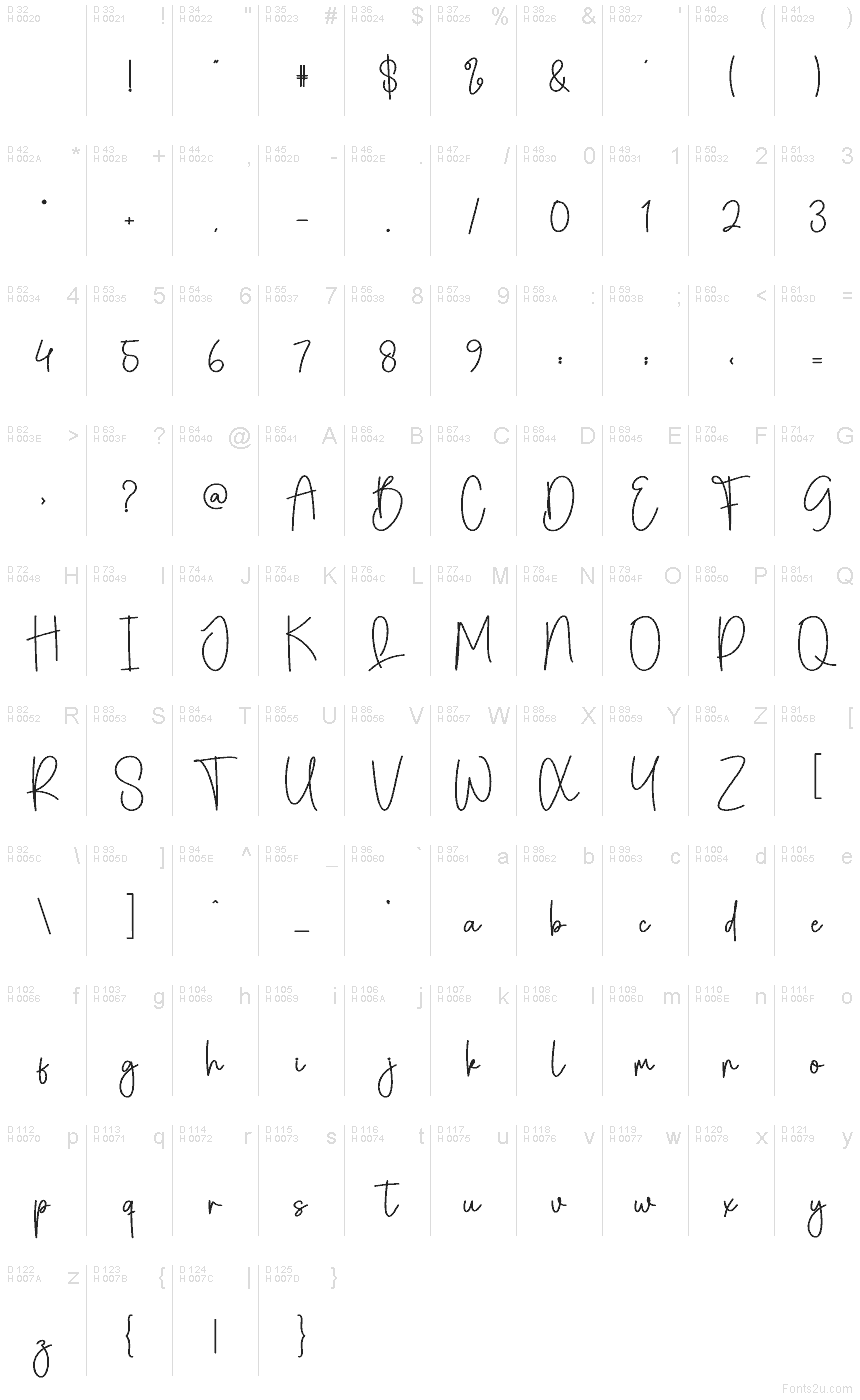
Breadshop
Breadshop font by Scratchones is a light handwritten font with a natural edge. It has an approachable mood and casual elegance that characterize its simplistic nature. Even though it unconsciously leans towards treating the classic style, this free handwritten font still maintains its modern touch and an organic flow.
This original font is perfect for business cards, digital signatures, invitations, greeting postcards, brochures covers, certificates, advertisements designs, religious quotes stickers and posters. Social media designers will surely benefit from titles written with this amazing type of special beauty.